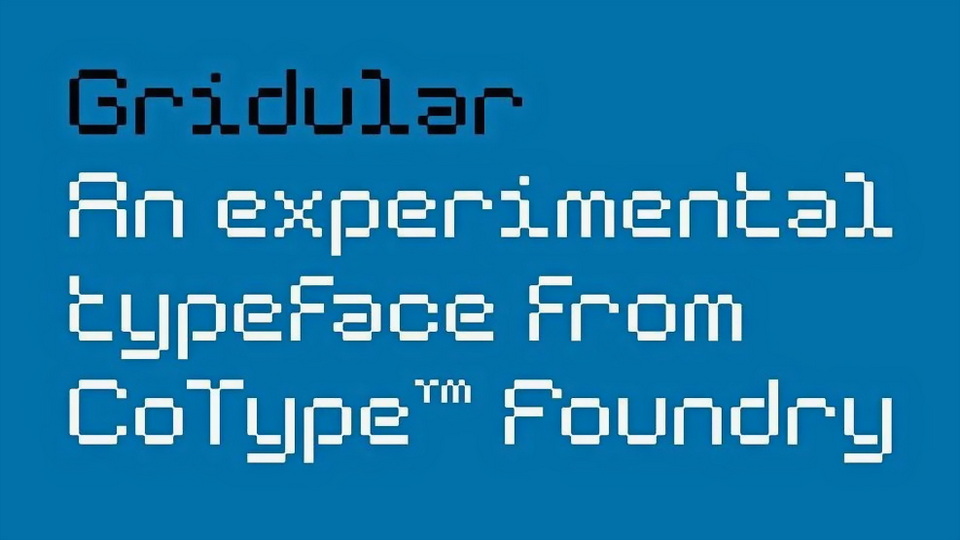
Download Gridular font, a display typeface which uses a grid of interconnected pixels with slightly rounded corners and connections. Gridular font is a more playful take on a similar grid, striking a dynamic balance between the decorative and the functional.
Designer: CoType Foundry